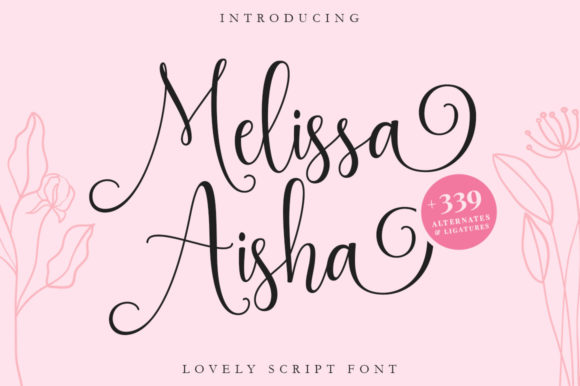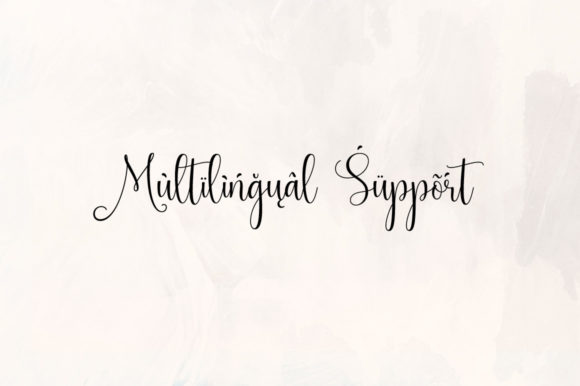
About Melissa Aisha Font
Melissa Aisha is a modern romantic calligraphy font with smooth flows. It is perfect for logos, wedding stationery, cards, gift designs, photography, watermark, product packaging and handwritten quotes. This font is PUA encoded which means you can access all of the glyphs and swashes with ease!